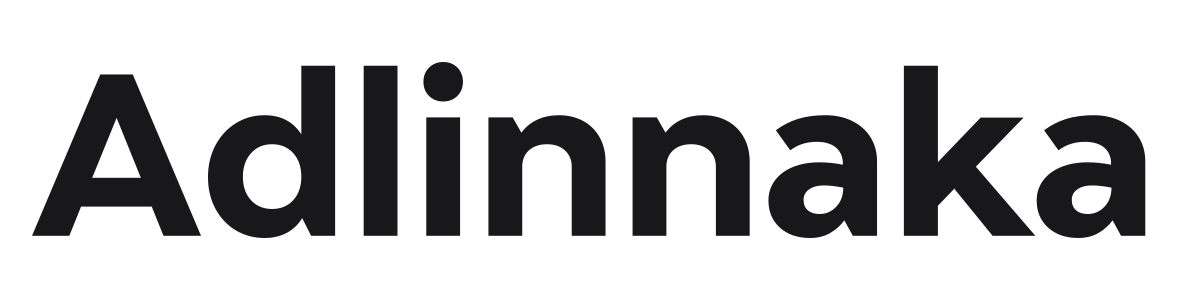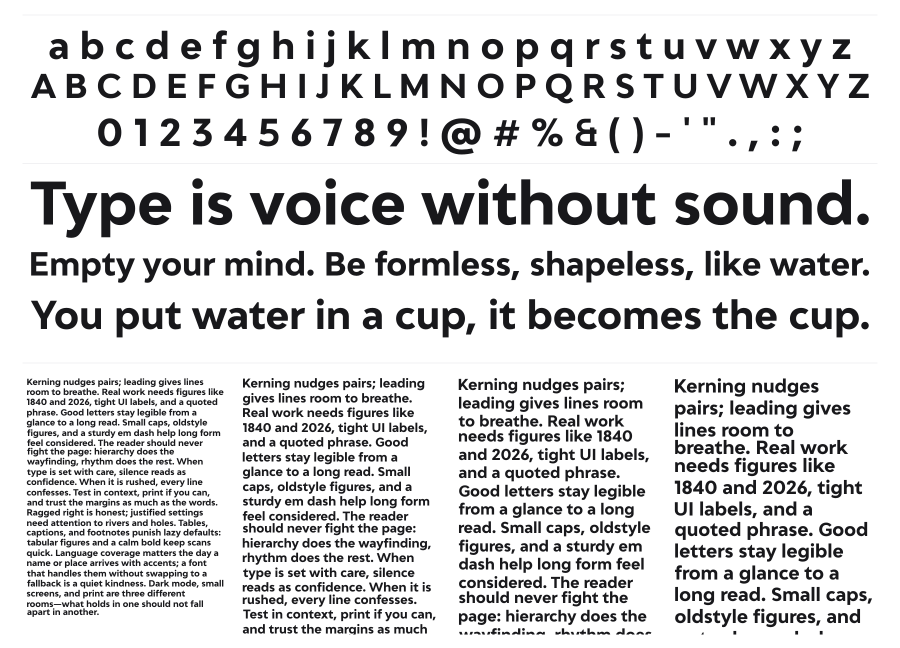
Adlinnaka
Adlinnaka is a humanist geometric sans built around the principle of balance, with a high x-height and open apertures that hold up across a wide range of sizes and contexts. The bold weight shown here is firm and confident without tipping into aggression, sitting comfortably in both headline and body copy roles. The full family spans three widths and nine weights, giving designers extensive room to work within a single coherent system.